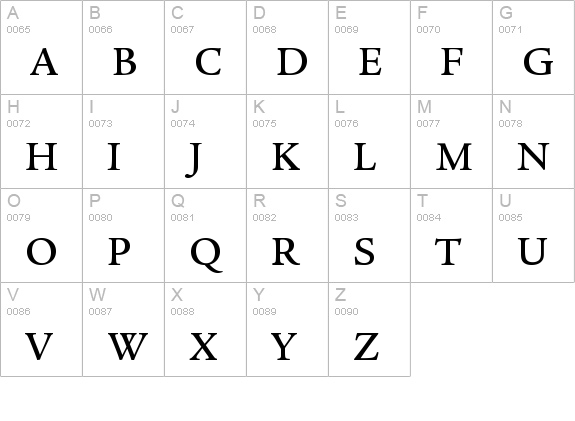
LegacySerifEF-Medium is a balanced, medium-weight variant in the LegacySerifEF typeface family \xE2\x80\x94 well suited to sub-headlines, navigation, and balanced editorial work.
LegacySerifEF-Medium is a stunning typeface that exudes elegance and sophistication. Its timeless design pays homage to the classical serif fonts, while adding a modern twist that makes it perfect for both traditional and contemporary projects. The medium weight strikes a harmonious balance between legibility and visual impact, making it suitable for various applications. This font boasts impeccable attention to detail, with each letterform carefully crafted to ensure a seamless reading experience. The serifs are delicately tapered, lending a graceful touch to the overall composition. The generous x-height and well-proportioned letterforms guarantee excellent readability, even at small sizes. One of the most remarkable features of LegacySerifEF-Medium is that it is available for free download at FontsMarket.com. This means that designers and enthusiasts alike can access its beauty and versatility without any cost. Whether you're working on a personal project or a professional endeavor, this font is a valuable asset that can elevate your designs to new heights. With its versatility and timeless appeal, LegacySerifEF-Medium is suitable for a wide range of design applications. It can be used for branding, editorial design, packaging, invitations, and much more. Its versatility extends to both print and digital platforms, making it a reliable choice for any design project. So why wait? Discover the beauty and versatility of LegacySerifEF-Medium today, and unleash your creativity without any limitations. Download this exquisite typeface for free at FontsMarket.com and witness how it transforms your designs into works of art.